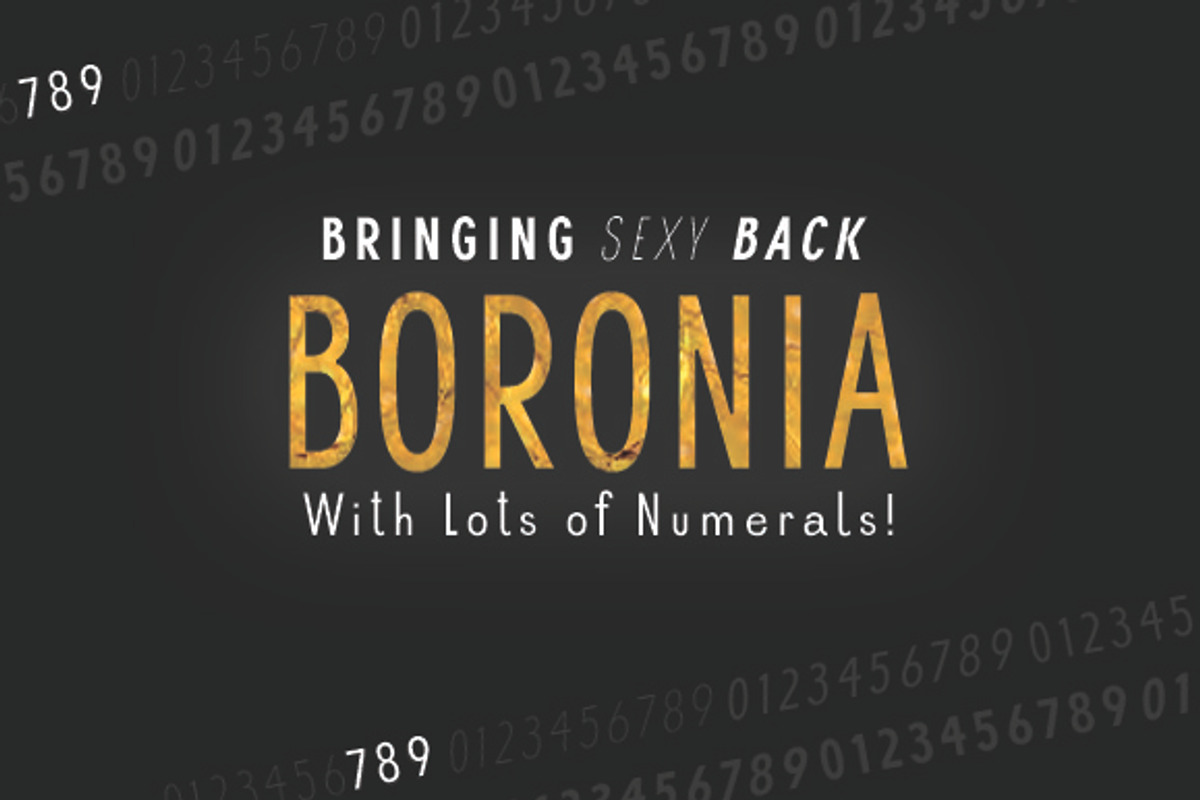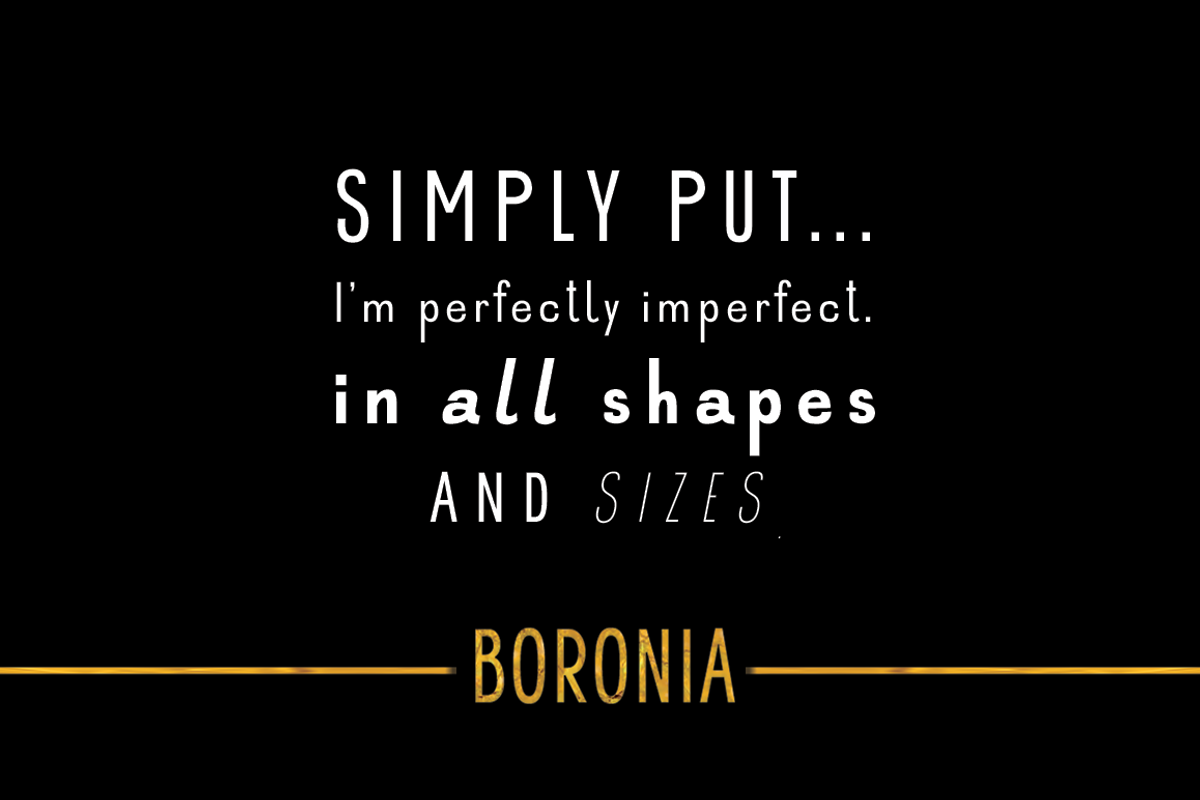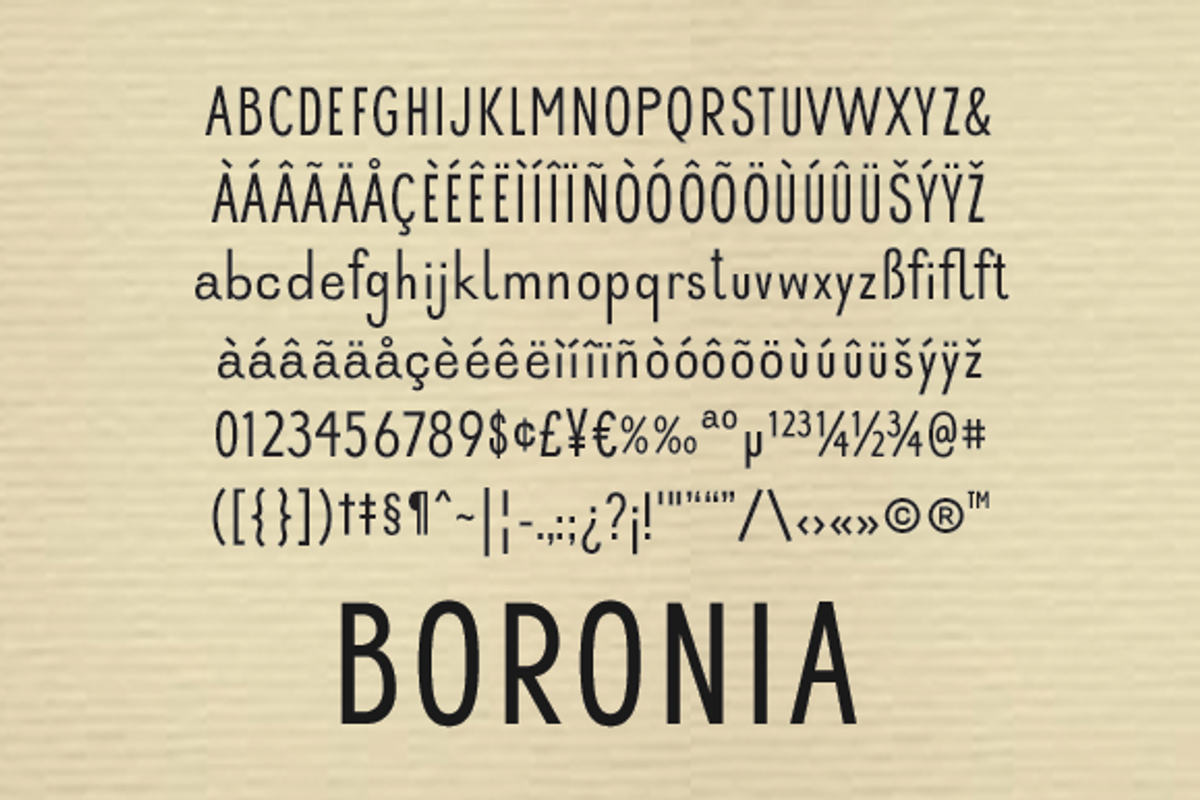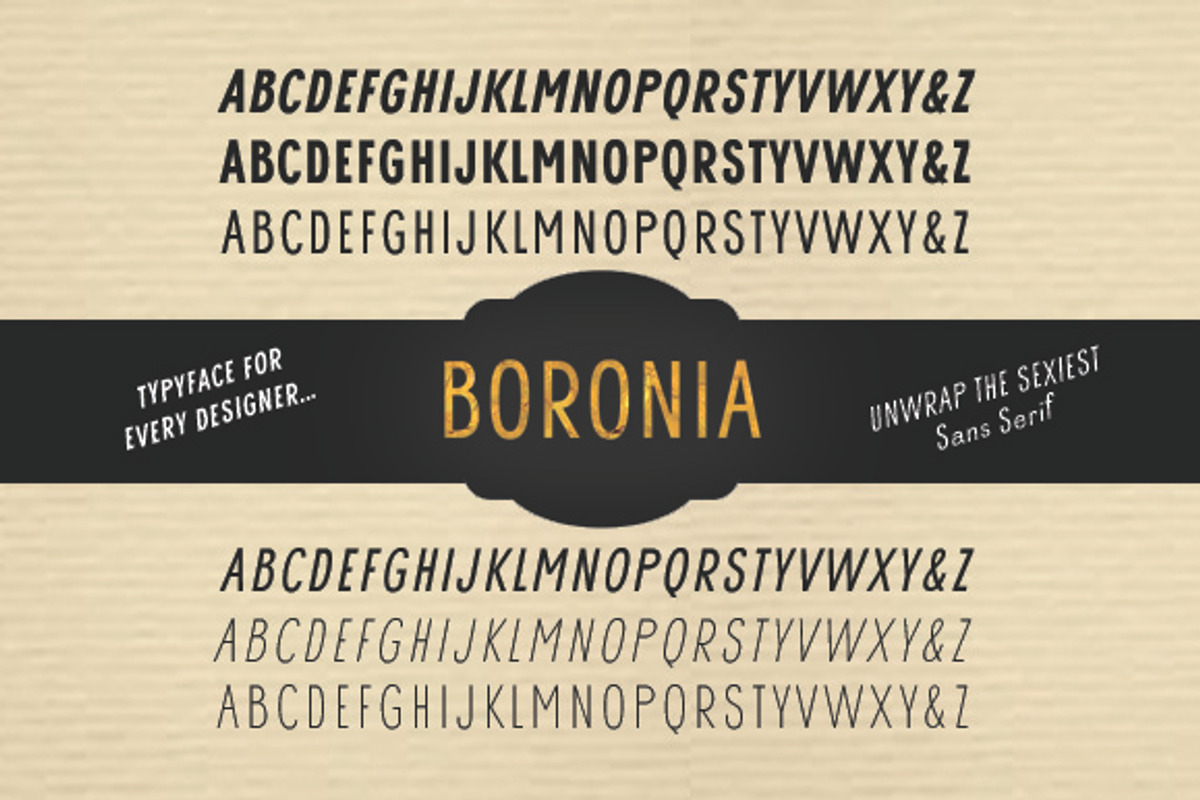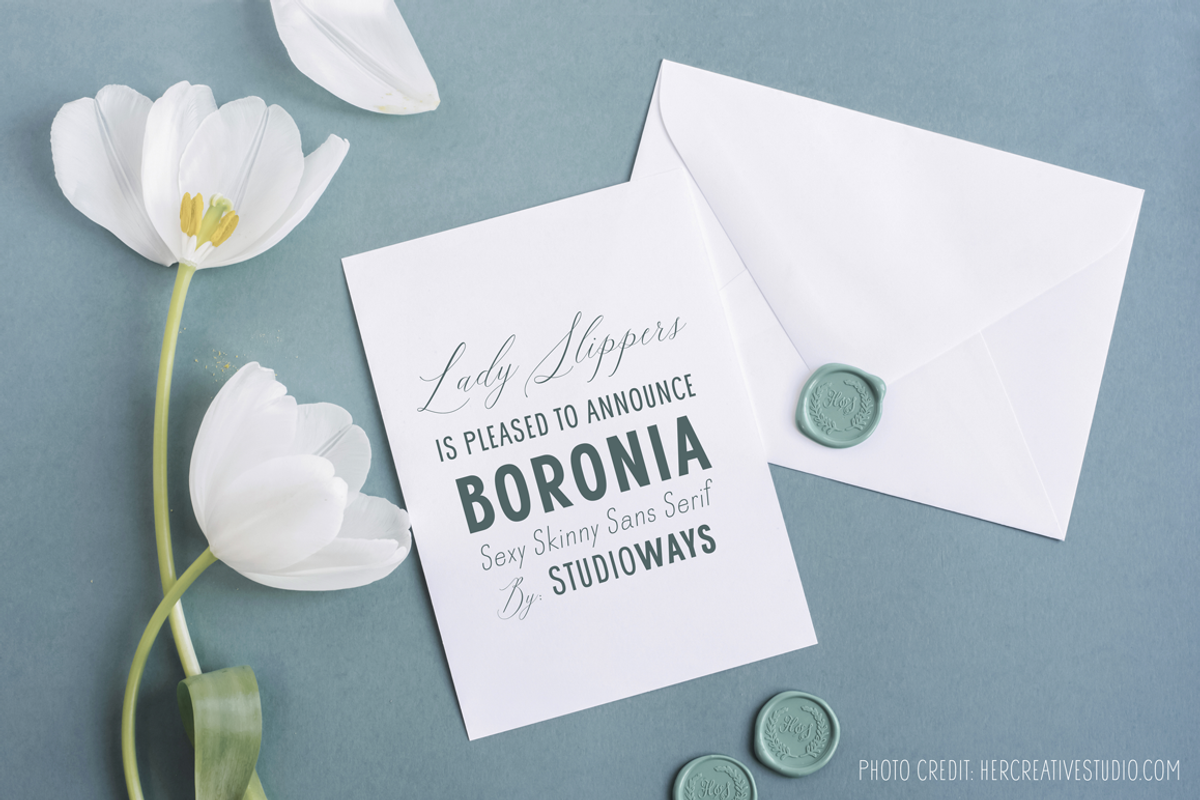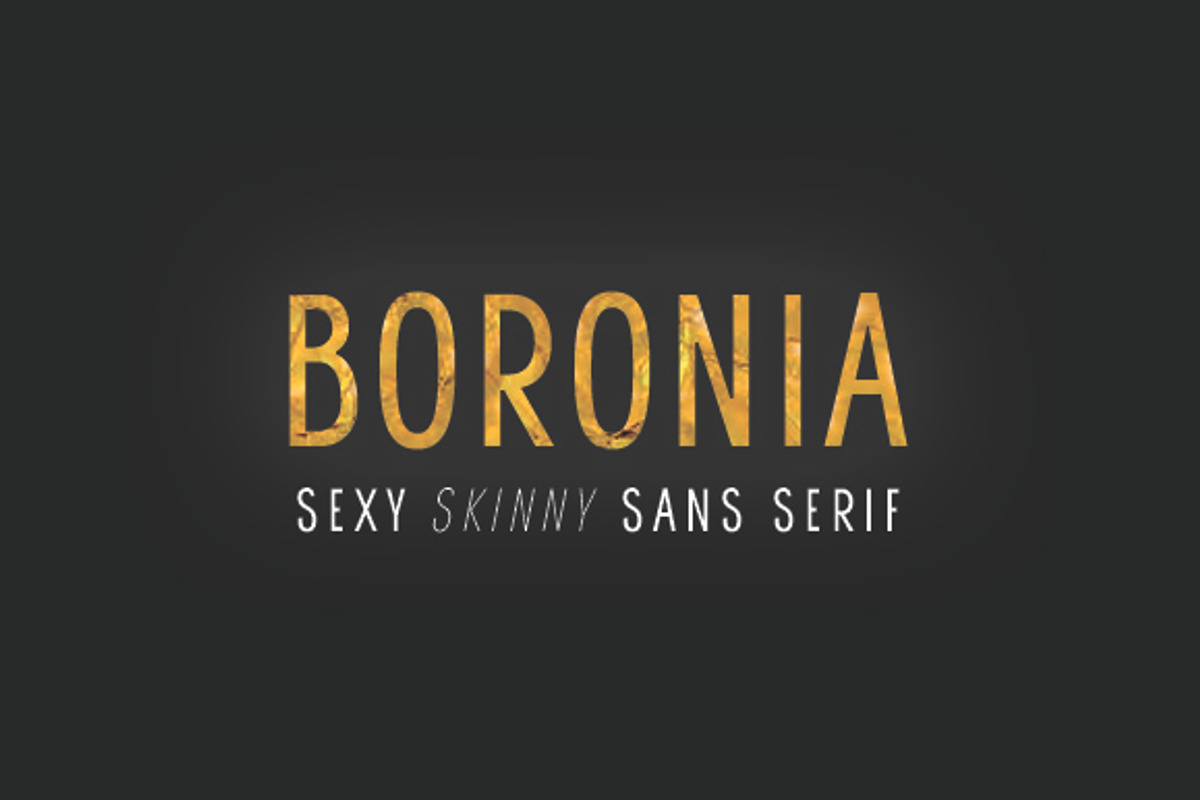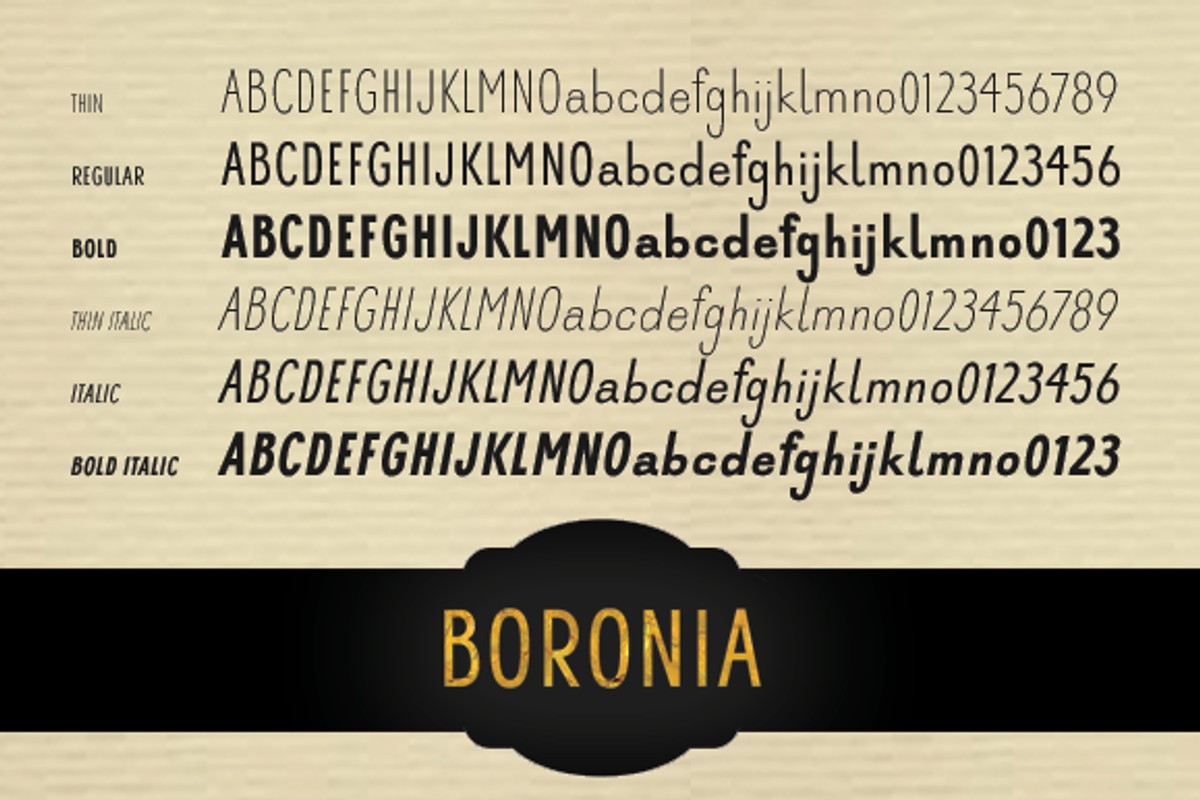
Boronia
Meet Boronia, Studioways' latest release! This six weight family was developed with the single idea of redefining the simple sans serif to pair with any style of font family. It is meant to blend with a variety of media, from editorial to bridal and fashion. The Boronia family weights range from an ultra sexy thin to a voluptuous bold, each with a companion italic, making it the 'perfect type' for all tastes. Each font supports the Western European character set (see the last poster). So scoop up this great sans serif font deal, BORONIA, and start making your work shine!
- Caps, lowercase, figures (supports standard Mac and Windows character sets)
- Kerning
- Basic OpenType features: superiors, ligatures, ordinals and fractions